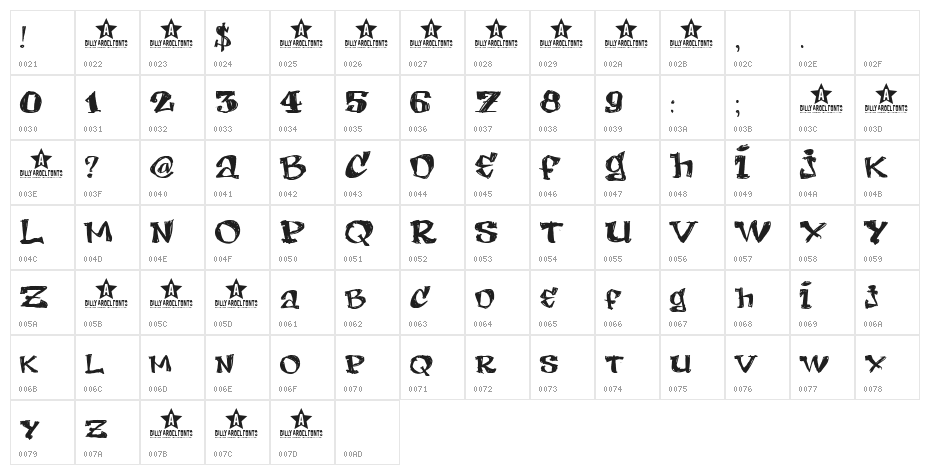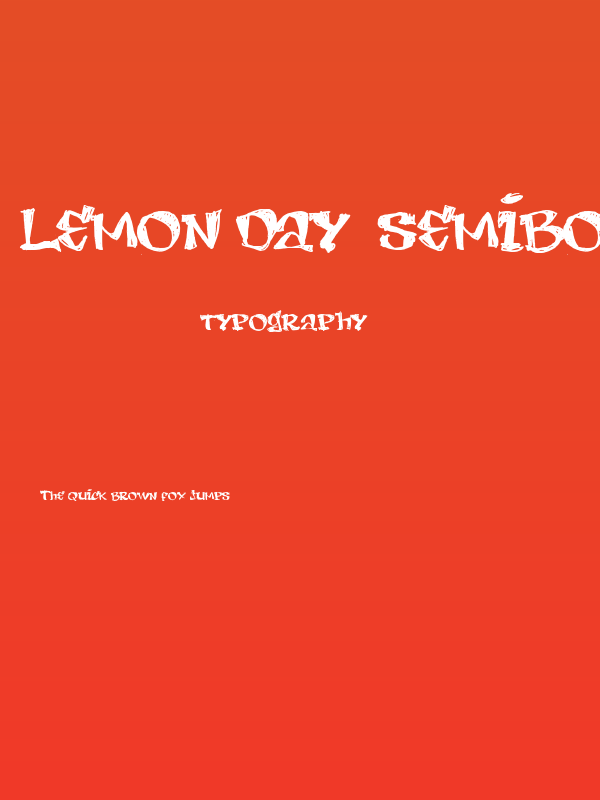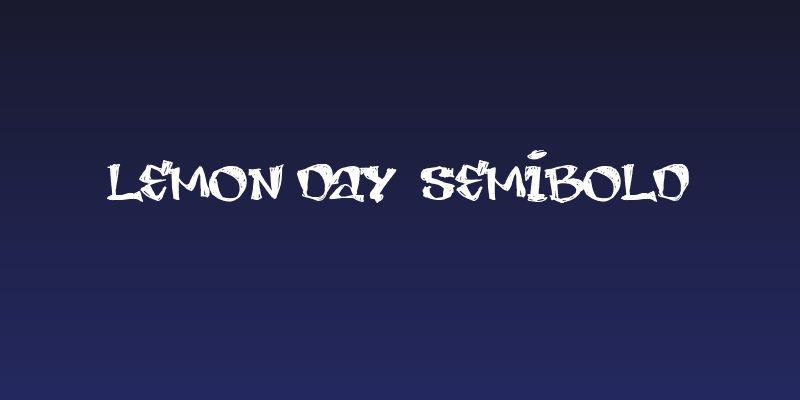
LEMON DAY SemiBold Font
LEMON DAY SemiBold Description
This font features a bold, dynamic style with a hand-drawn appearance. The characters are irregular and have a rough, textured look, giving them a unique and artistic flair. The uppercase and lowercase letters maintain a consistent style, with exaggerated curves and angles that add to the font's expressive nature. The numbers and special characters follow the same design principles, ensuring a cohesive look across all elements. This font is ideal for projects that require a bold statement or an artistic touch, such as posters, album covers, or creative branding.
| Overall Style | Artistic, Expressive |
| Use Case | Headlines, Logos, Artistic projects |
| Proposed Projects | Ideal for posters, album covers, creative branding, and artistic projects. |